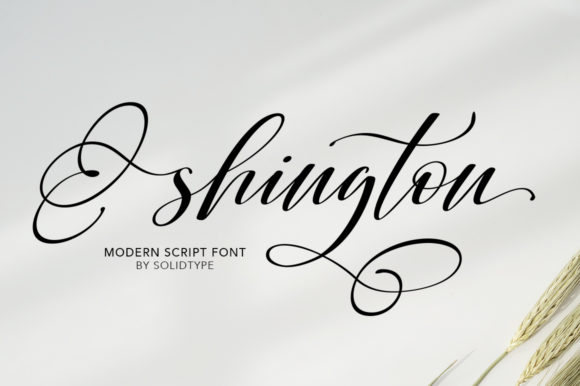
Welcome to the realm of Shington Script Font, a mesmerizing creation by Solidtype, where elegance and charm intertwine. This remarkable script font, boasting a distinctive style, beckons you to embark on a creative adventure.
With its graceful curves and playful strokes, Shington Script Font is a visual masterpiece that breathes life into your designs. Crafted with meticulous attention to detail, each letter exudes a captivating personality, adding a touch of enchantment to your words.
Immerse yourself in the world of Shington Script Font and discover a symphony of creative possibilities. From whimsical invitations to enchanting logos, from captivating social media posts to heartwarming personal notes, Shington Script Font transforms your words into works of art.
Unleash your imagination and let Shington Script Font guide you through a journey of self-expression. Its versatility knows no bounds, allowing you to effortlessly elevate your designs, whether you're a seasoned graphic designer or just starting your creative journey.
Indulge in the allure of Shington Script Font and experience the joy of creating designs that captivate and inspire. Its timeless beauty will leave an indelible mark on your audience, leaving them spellbound by your creations.